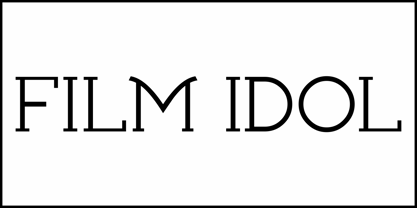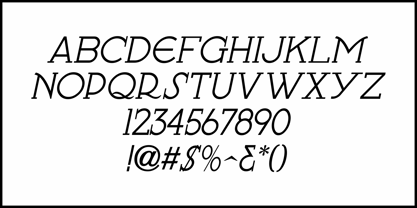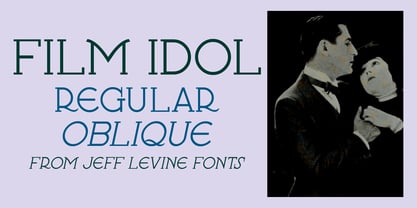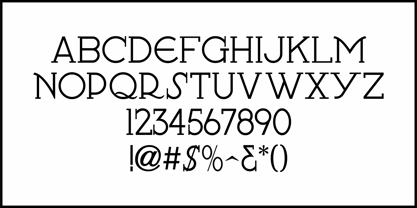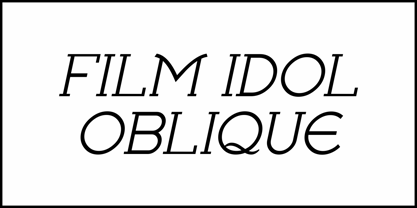
Film Idol JNL
by Jeff Levine
An ad in the May 2, 1931 issue of Motion Picture Herald for the Marlene Dietrich film "Indiscretion" inspired Film Idol JNL, which is available in both regular and oblique versions.
This unique design features a stylized take on slab serif lettering that typifies the Art Deco influences of the 1930s.